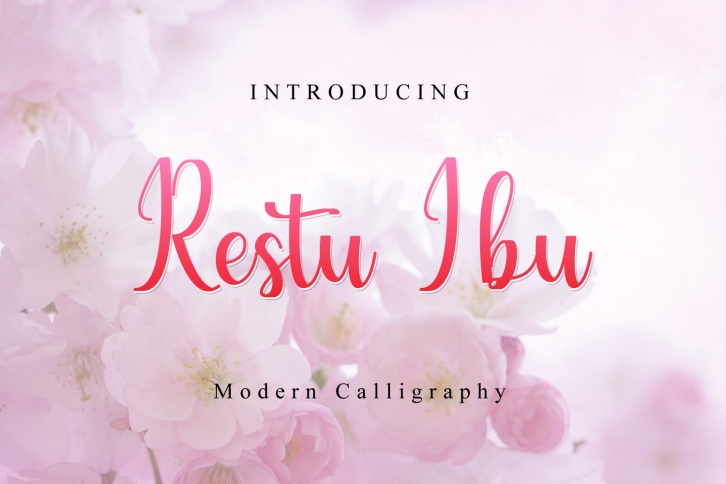
Restu Ibu is a trendy and unique font with an authentic style. It was designed by Fiqiart and it's a great choice for creative people who need such a font. It was released on July 24, 2020 and the file size is 5.39 MB. Restu Ibu will add an organic vibe to any design idea!